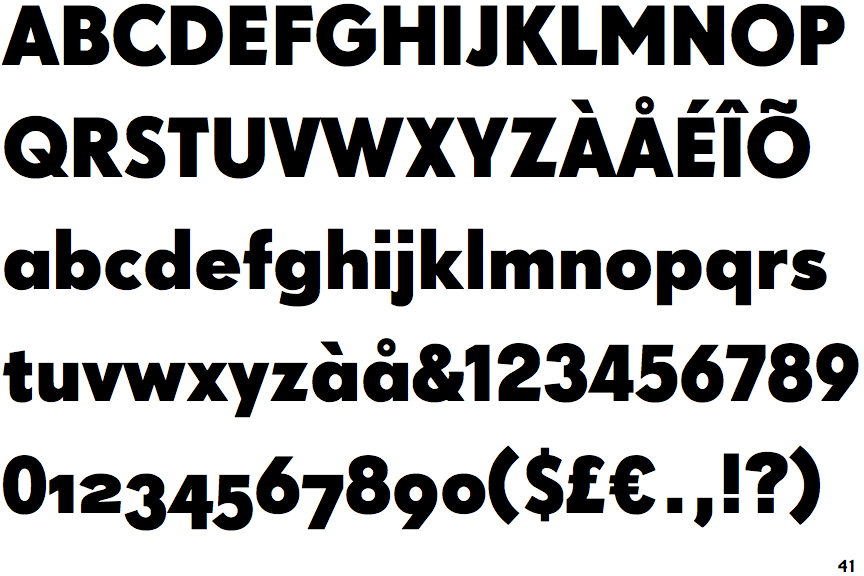
German type designer svend smital created this sans fontfont in 1999. Trade gothic bold & sabon. Web futura bold & souvenir.
Maja Bjeletic — Space Grotesk.
Web aktiv grotesk sans serif font is a condensed sans serif font crafted & designed by daltonmaag. Web typo grotesk à € by studio typo. Questrial is the perfect font for body text and headlines on a website.
Ff Super Grotesk Font Family Was Designed By Svend Smital And Published By Fontfont.
The family has 6 weights, ranging from regular to bold in. Aktiv grotesk is therefore an ideal choice for branding. Aktiv grotesk is therefore an ideal choice for branding exercises which.
Web what is the ff super grotesk® font? Web supergroteska / regular font family. The family has 6 weights, ranging from regular to bold in condensed and normal and is ideally suited for film and tv and editorial and publishing.